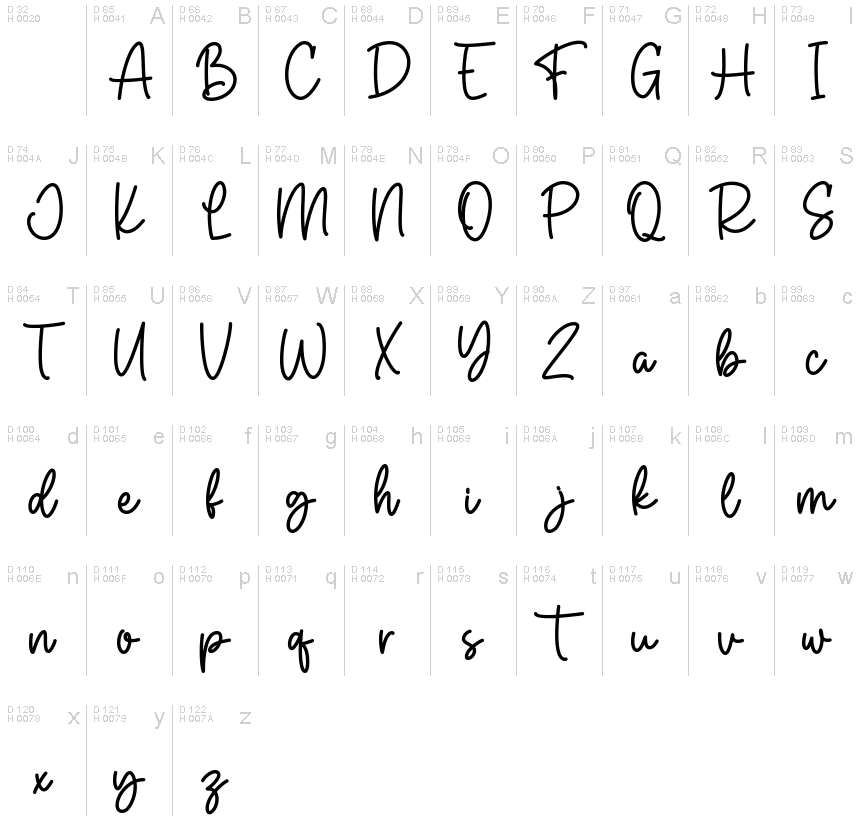
Country Field
Country Field font designed by Graphix Line Studio is a handwritten free font carrying all the elegance of fluid motion with its letters. Its graceful simplicity gives it an organic look, fit for bringing rustic and aesthetic vibes to your projects. Letters of this font have a nice casual aura, which makes it appropriate for several occasions.